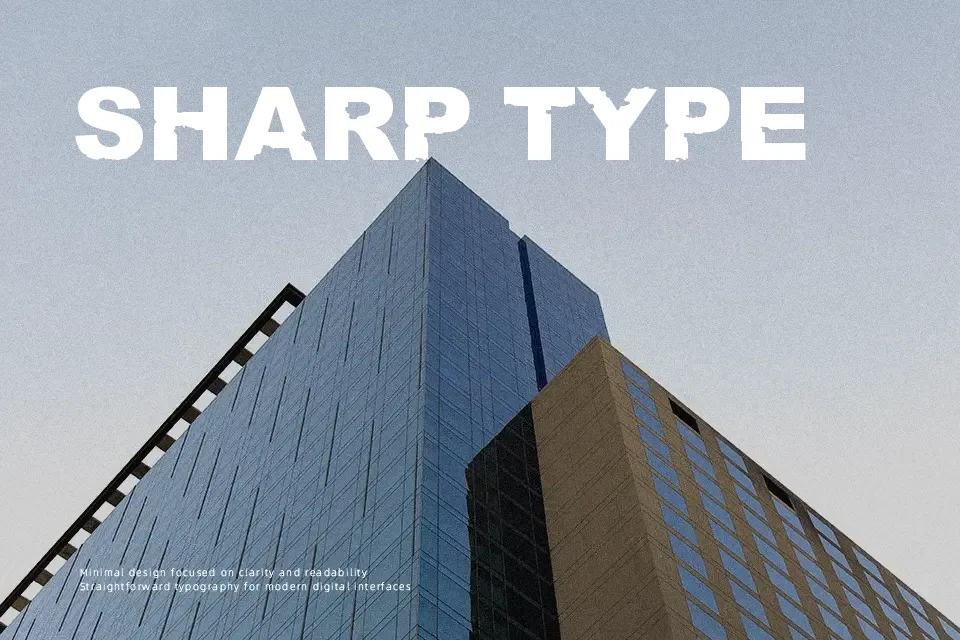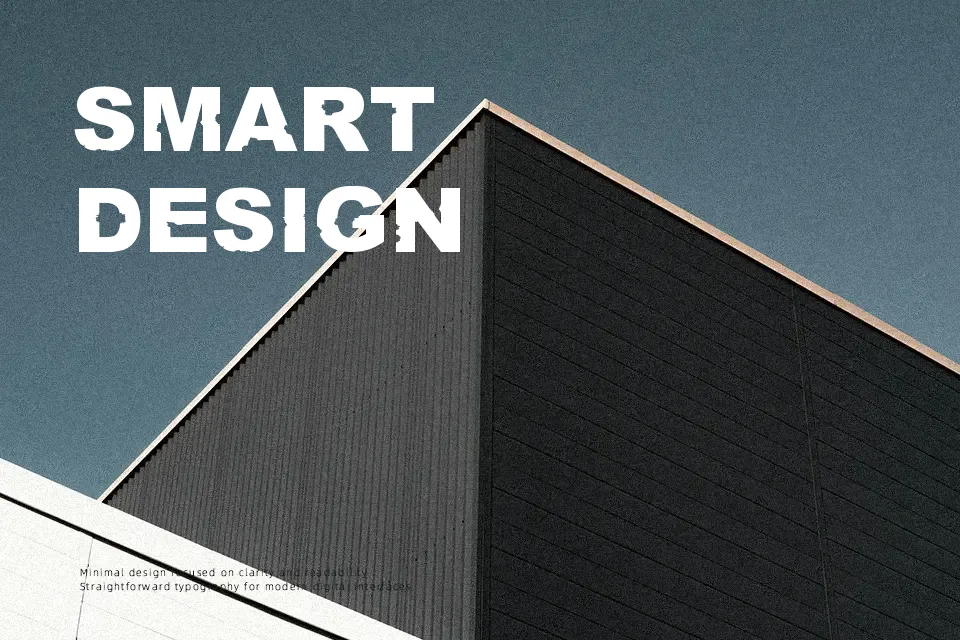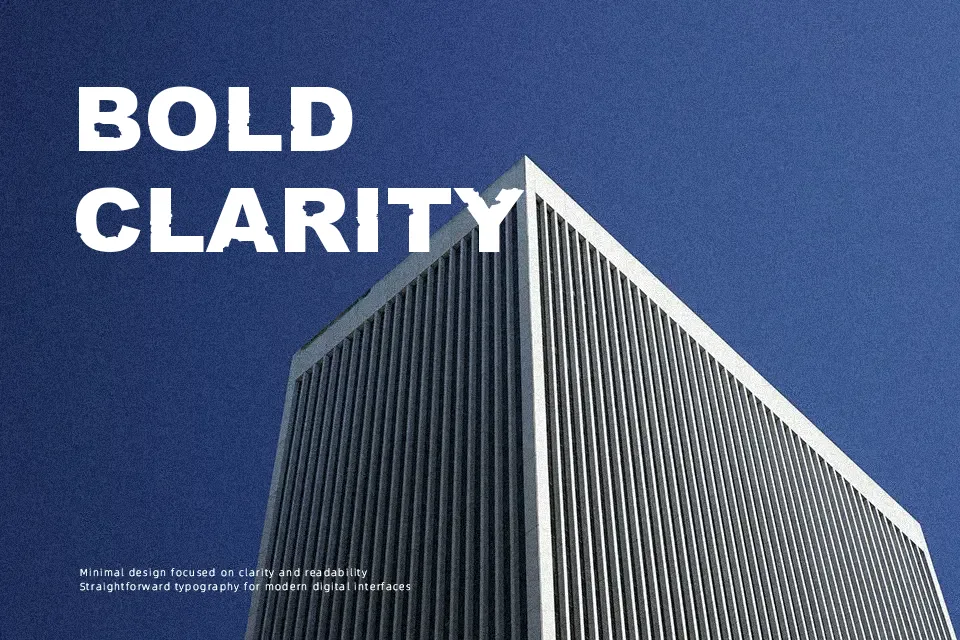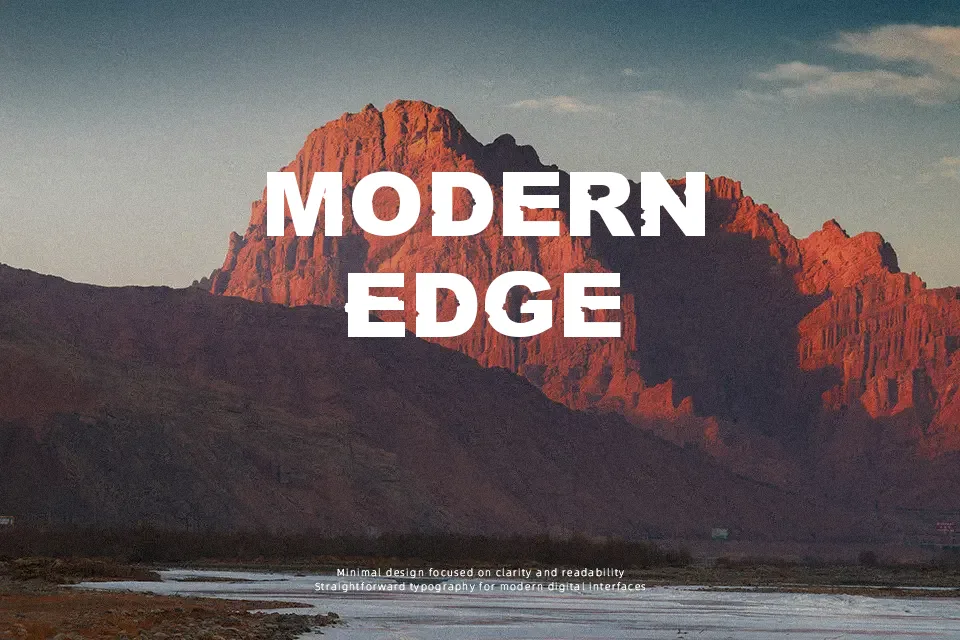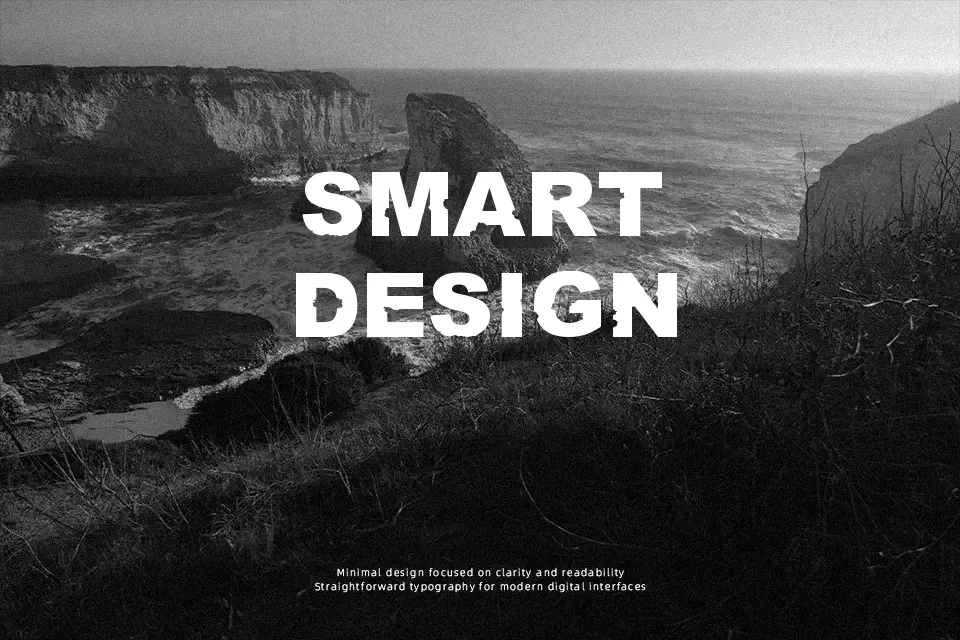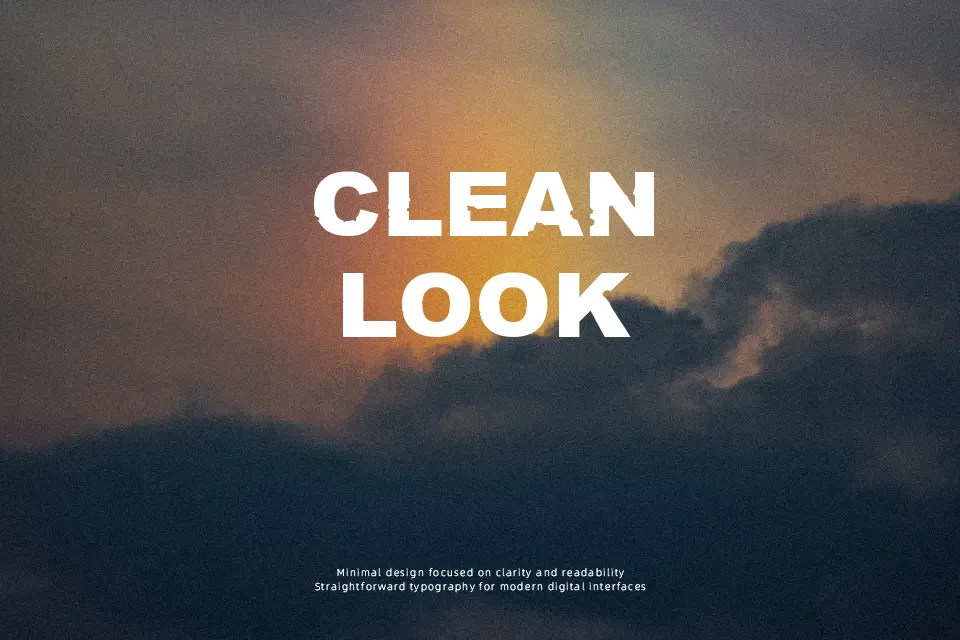
Rust never sleeps Font
Designed by Juha Korhonen
The Rust never sleeps Font brings a raw, industrial atmosphere to display typography with its heavily weathered letterforms. The characters feature dense textures and distressed edges, creating a highly tactile appearance that mimics peeling paint or rusted metal. Because the irregular outlines and eroded gaps command visual attention, the typeface excels in large-scale applications where the distressed details can be fully appreciated. However, the heavy texture significantly reduces clarity at smaller sizes, making it difficult to parse in dense layouts. The substantial stroke weight provides a solid foundation, ensuring the letterforms remain structurally intact despite their heavily deteriorated surface.
Best For: grunge album covers, vintage apparel graphics, horror movie posters, industrial brand packaging
Not Ideal For: long paragraph text, small interface labels, corporate reports, technical manuals
Perfect for fashion, film, and music, with a dark and decorative style.